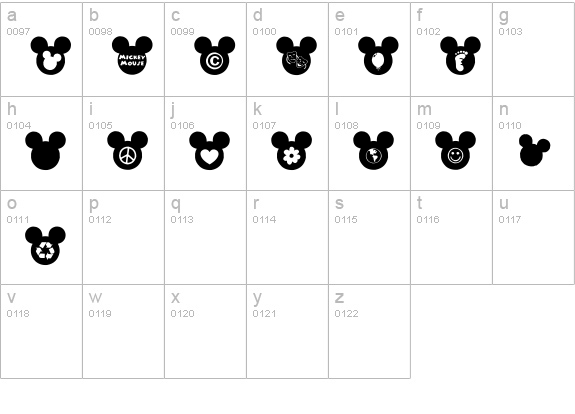
Mickey Ears Extra Font Details
The Mickey Ears Extra font is a whimsical and playful typeface inspired by the iconic Mickey Mouse ears. This font features charming and delightful characters, perfect for adding a touch of magic to your designs. With its unique style and fun personality, Mickey Ears Extra is sure to bring joy and nostalgia to any project. Best of all, this font is completely free to download at FontsMarket.com, making it accessible to everyone looking to add a touch of Disney magic to their creations. Whether you're designing a birthday invitation, a greeting card, or a poster, Mickey Ears Extra is the perfect choice for adding a touch of whimsy and charm. Download this delightful font today and let your creativity shine with Mickey Ears Extra!